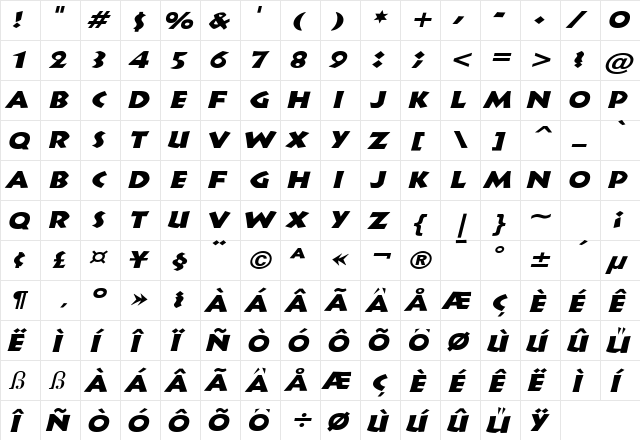
Indy Wide Italic
Design Context for Indy Wide Typeface
Indy Wide offers clean, dependable letterforms without strong stylistic allegiance, making it a practical choice for designers who need flexibility. Its italic angle brings a sense of urgency and motion to the letterforms.
Pro Tip: Try Indy Wide for annotation and caption copy alongside an upright companion — the contrast in angle creates a dynamic but ordered typographic system.